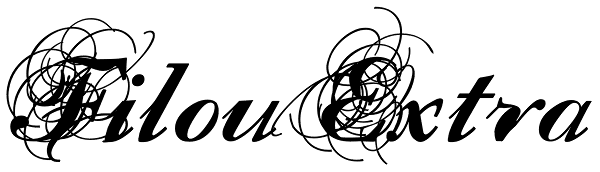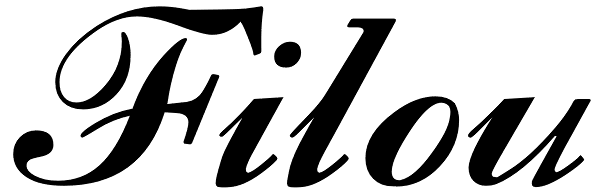
Filou
Filou is a genuine bastard inspired by three different typefaces. It consists of three weights: "Regular", "Medium" and "Extra" which can be easily mixed together.
Filou Extra
Filou Medium
Filou